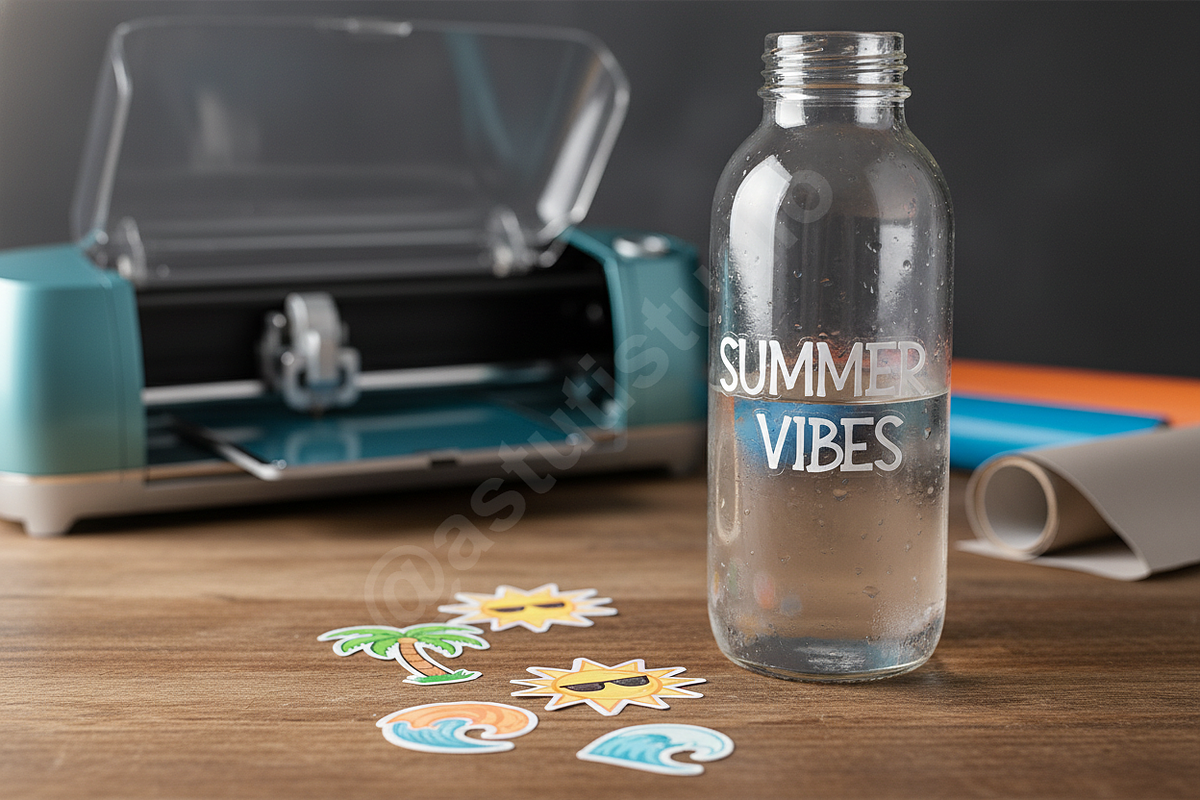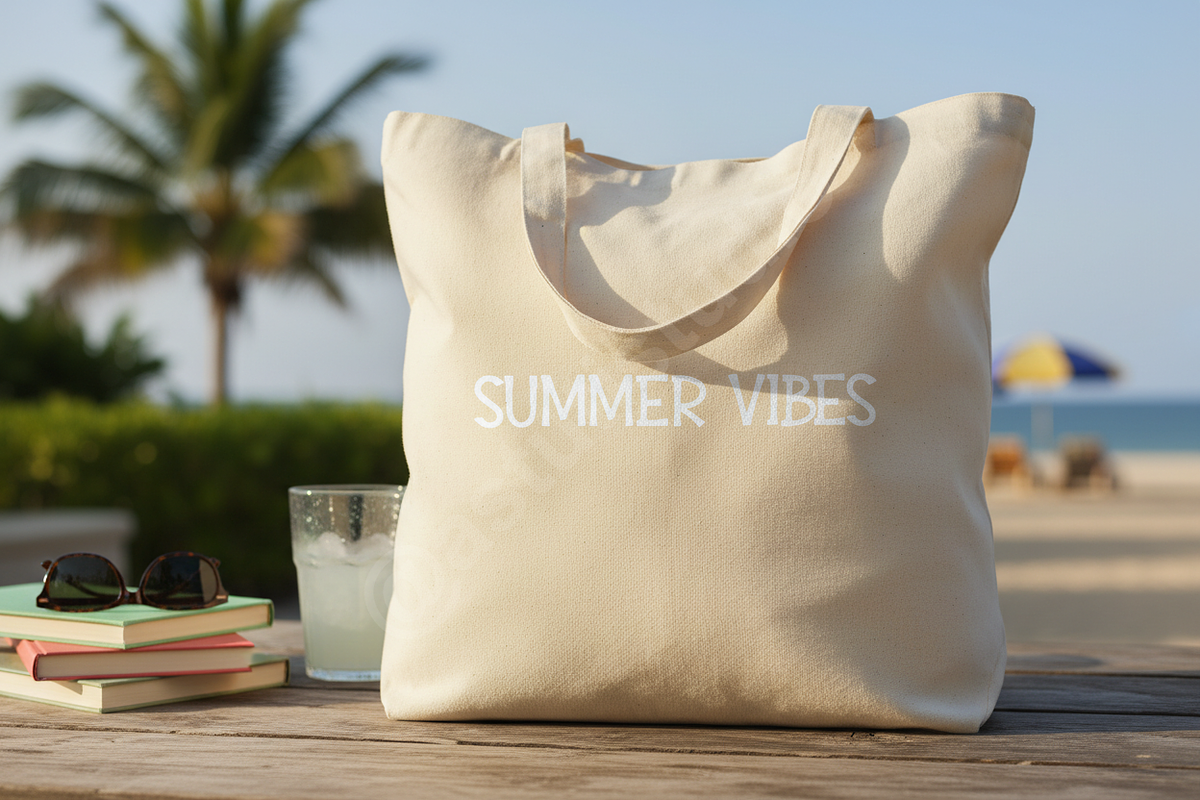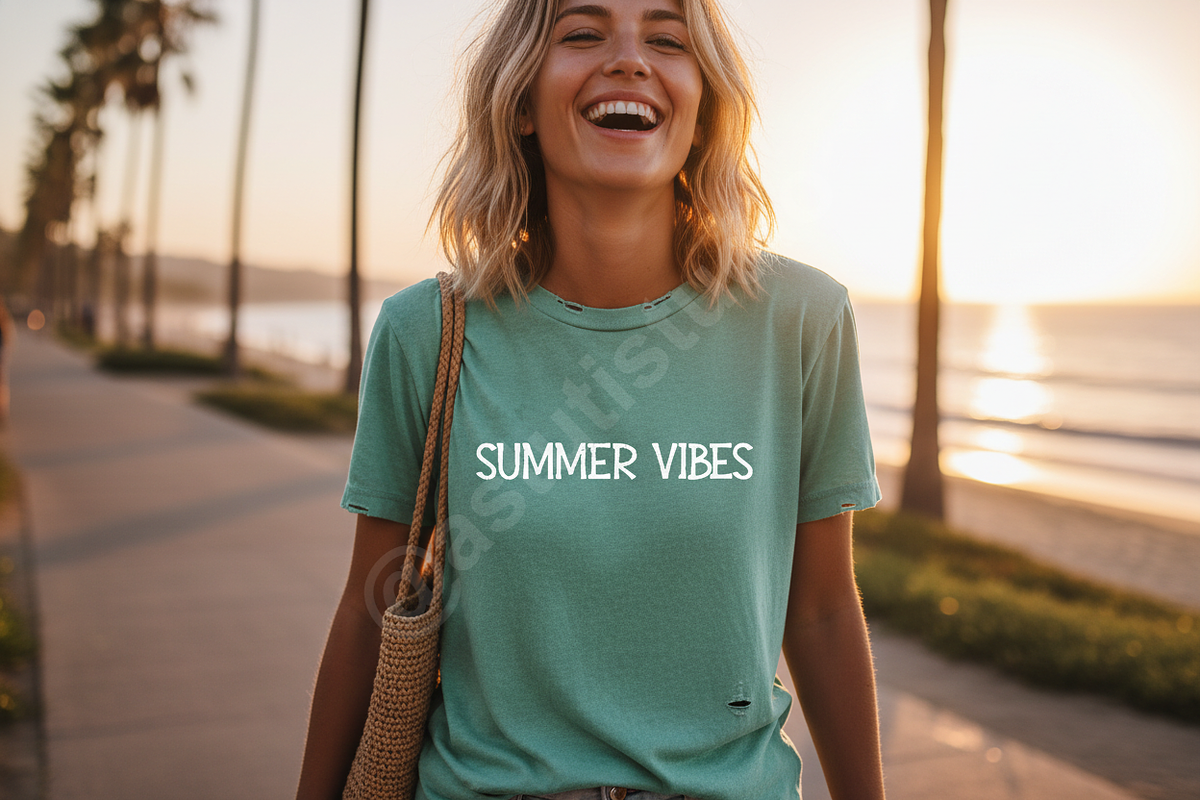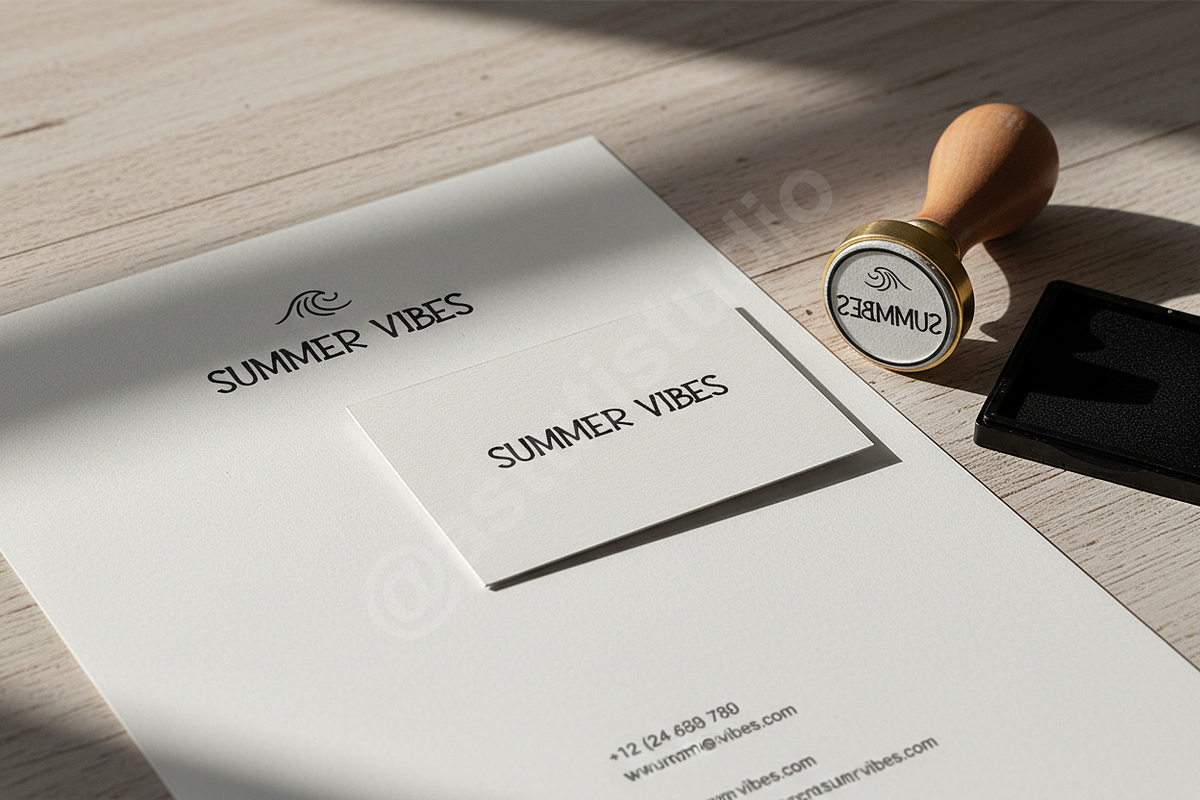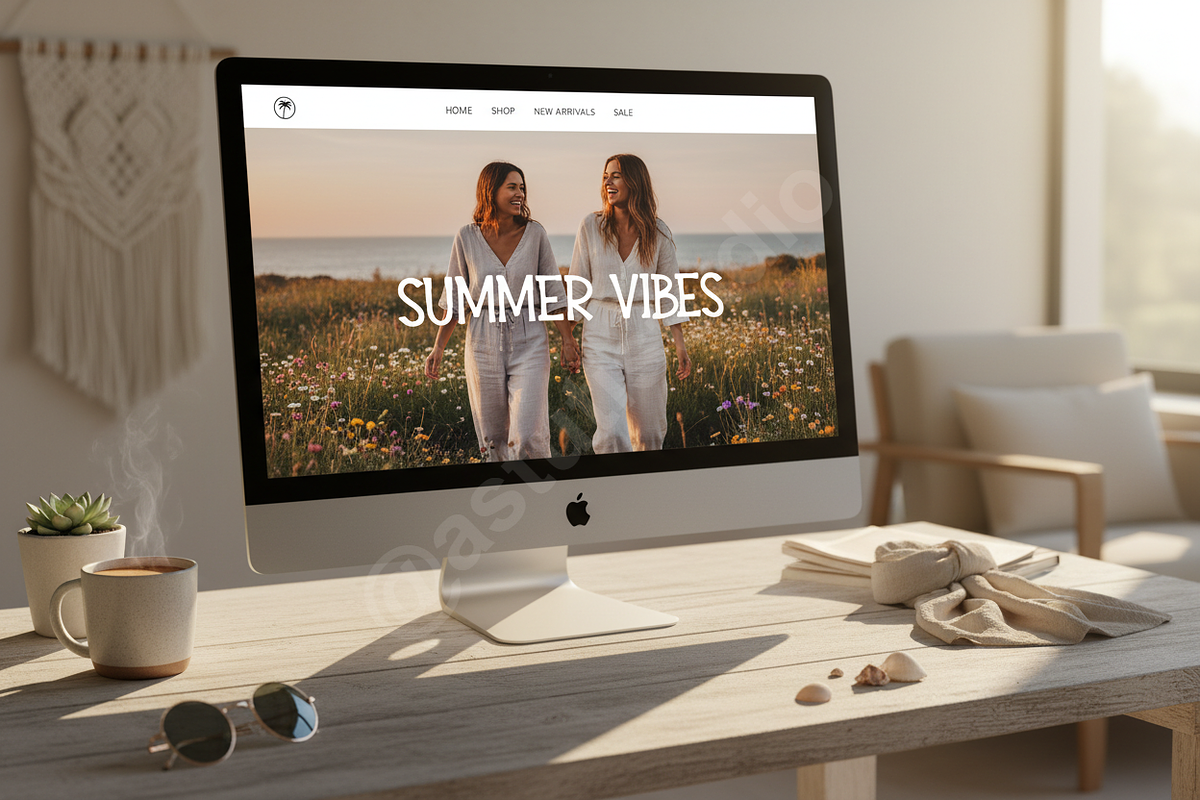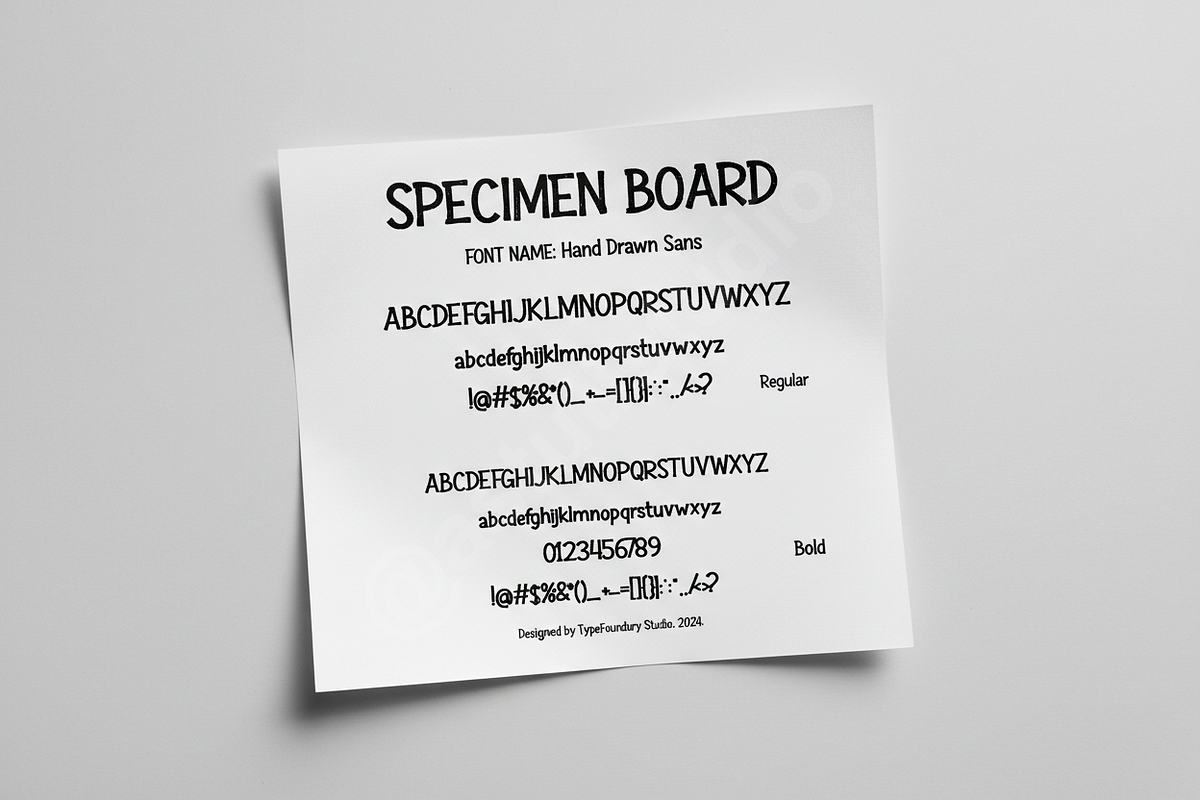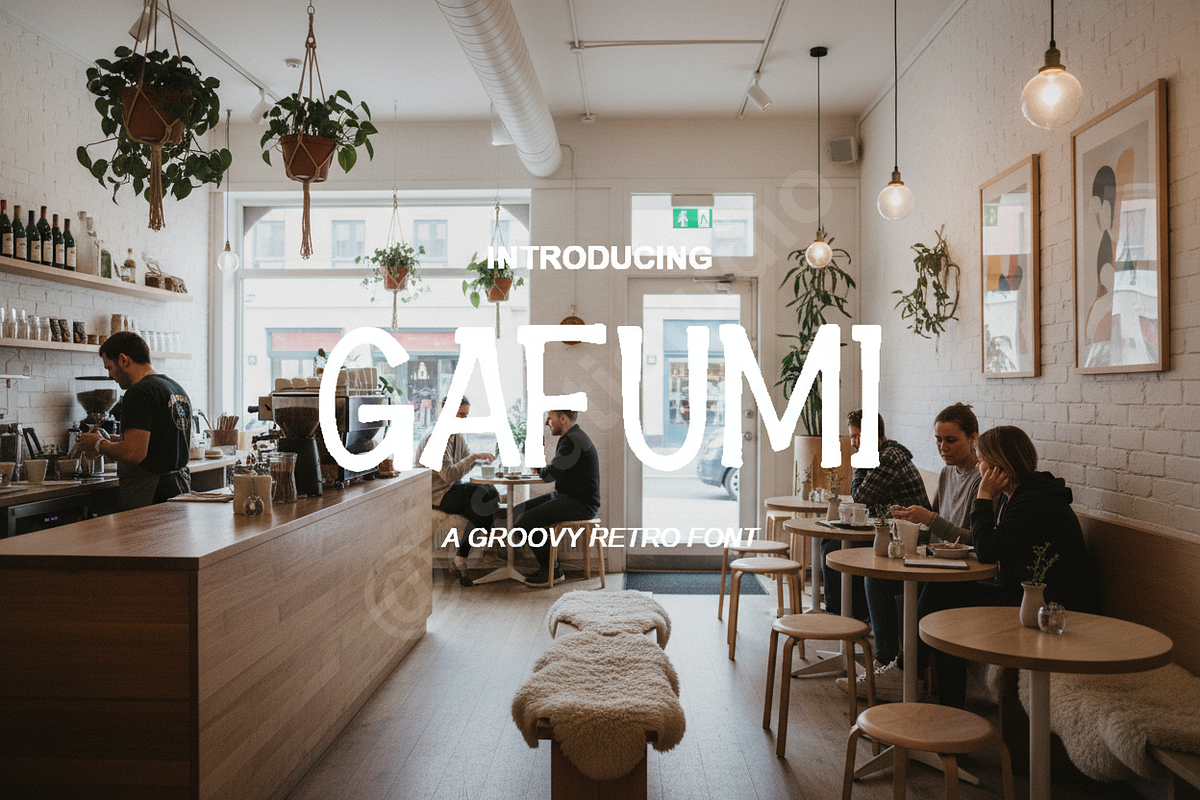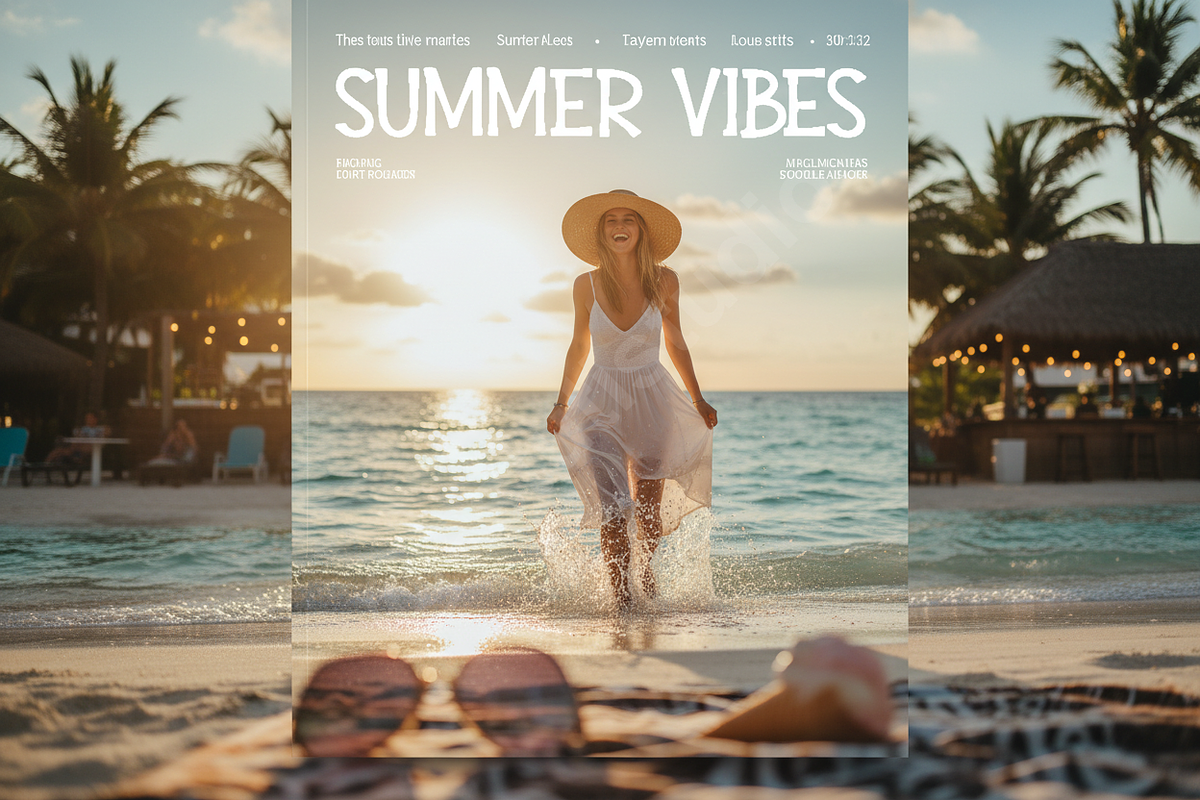
Gafumi - The Elegant Luxury Display
Gafumi is a masterpiece of typographic elegance, meticulously crafted for designers seeking ultimate sophistication and refinement. This premium display serif seamlessly blends timeless classical structure with crisp, contemporary lines, making it the definitive choice for design projects that demand a high level of prestige and clarity.
Perfect for High-Impact Design
Gafumi excels in environments where quality speaks loudest: • Luxury Branding & Identity Systems • High-Fashion Editorial Layouts and Magazines • Premium Product Packaging and Labeling • Elegant Social Media Graphics and Marketing Materials